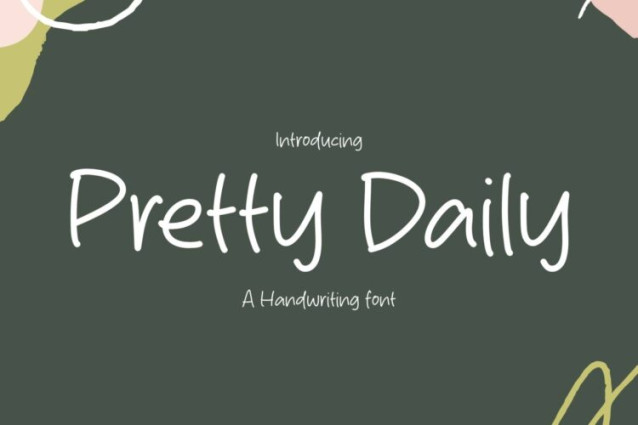
Pretty Daily Font
Pretty Daily Font is a simple and friendly handwritten font. Its natural and unique style makes it incredibly fitting to a large pool of designs. The only limit is your imagination!